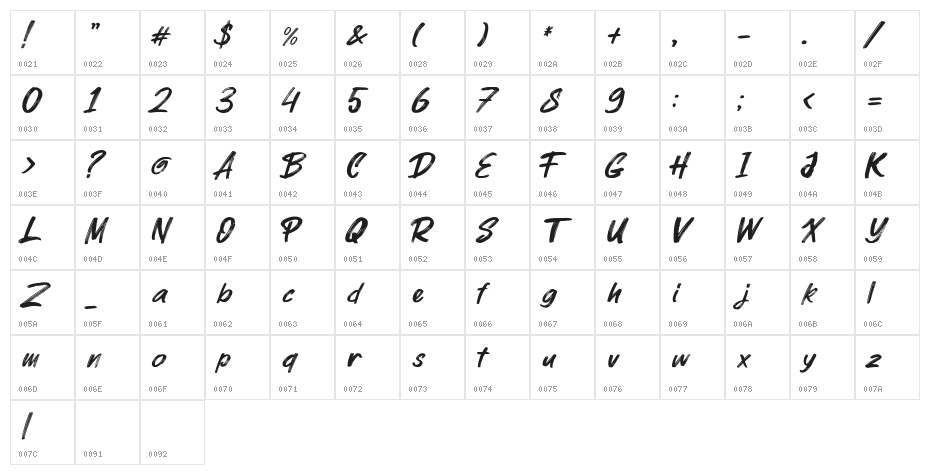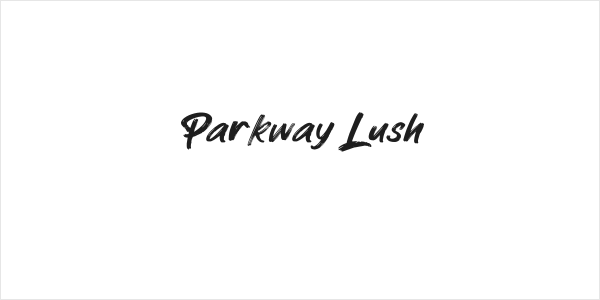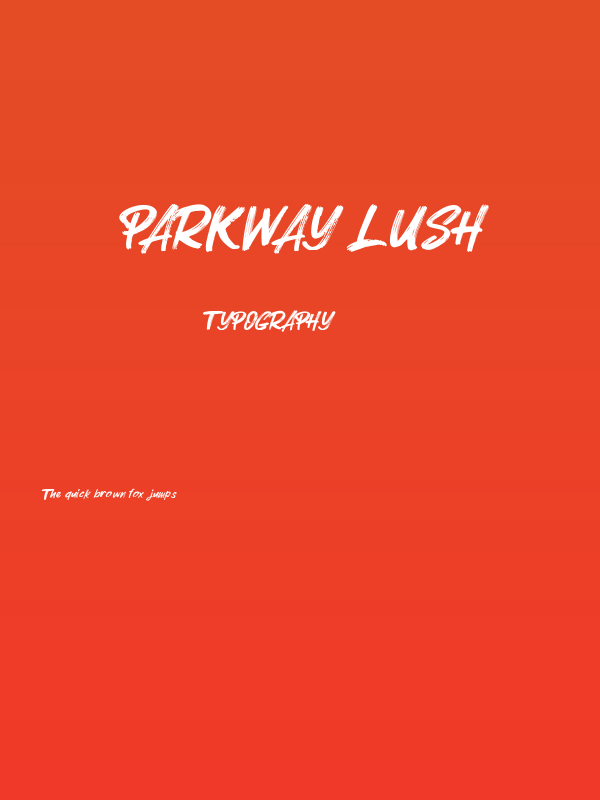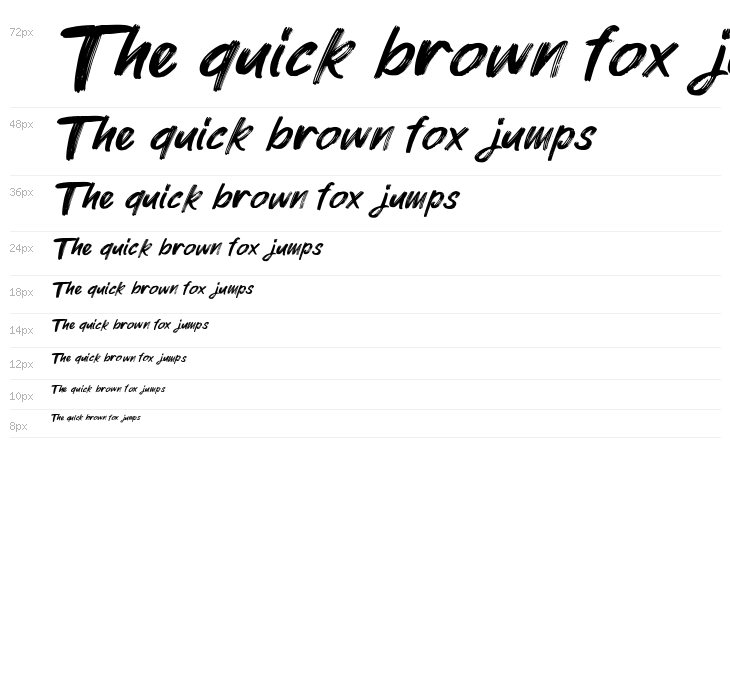
Parkway Lush Font
Parkway Lush Description
This font features a bold, expressive brush script style with dynamic strokes and a hand-painted appearance. The characters have a lively and energetic feel, with varying stroke widths that create a sense of movement and fluidity. The uppercase and lowercase letters are well-balanced, maintaining a consistent flow throughout the alphabet. Numbers and special characters are crafted with the same attention to detail, ensuring versatility across different uses. The overall design is both artistic and modern, making it suitable for creative projects that require a personal touch.
| Overall Style | Modern, Artistic |
| Proposed Projects | Ideal for branding, posters, invitations, and any creative project that benefits from a personal, artistic touch. |